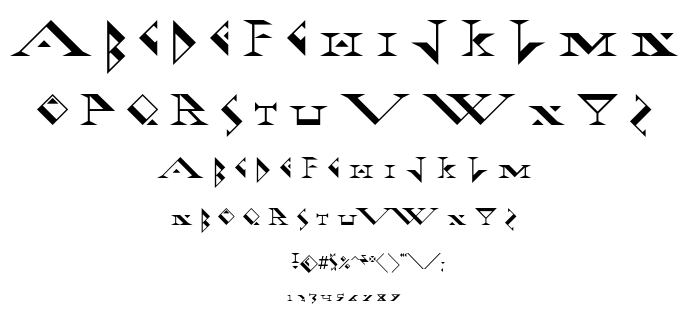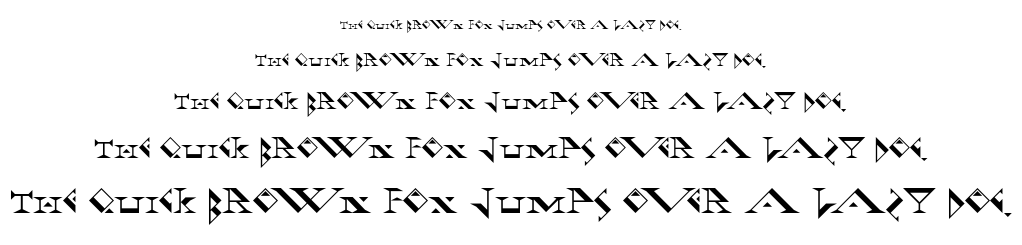
Fadgod
Fadgod Font
Fadgod is a triangular, lounge font for people who like fonts with a point. Don’t forget to read the files inside the zip for details.